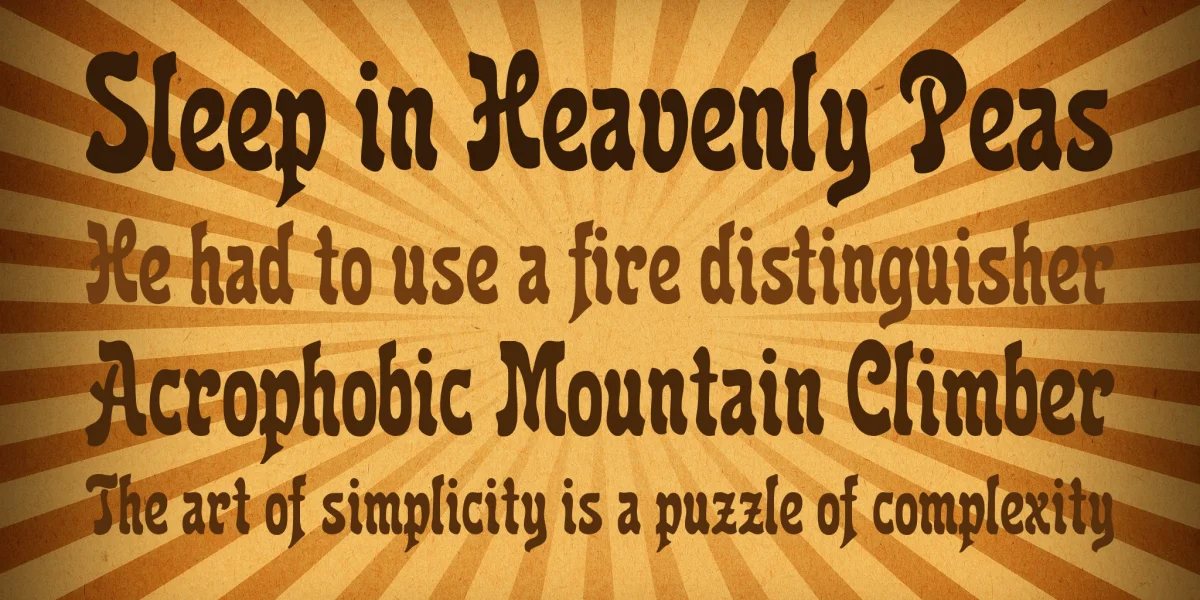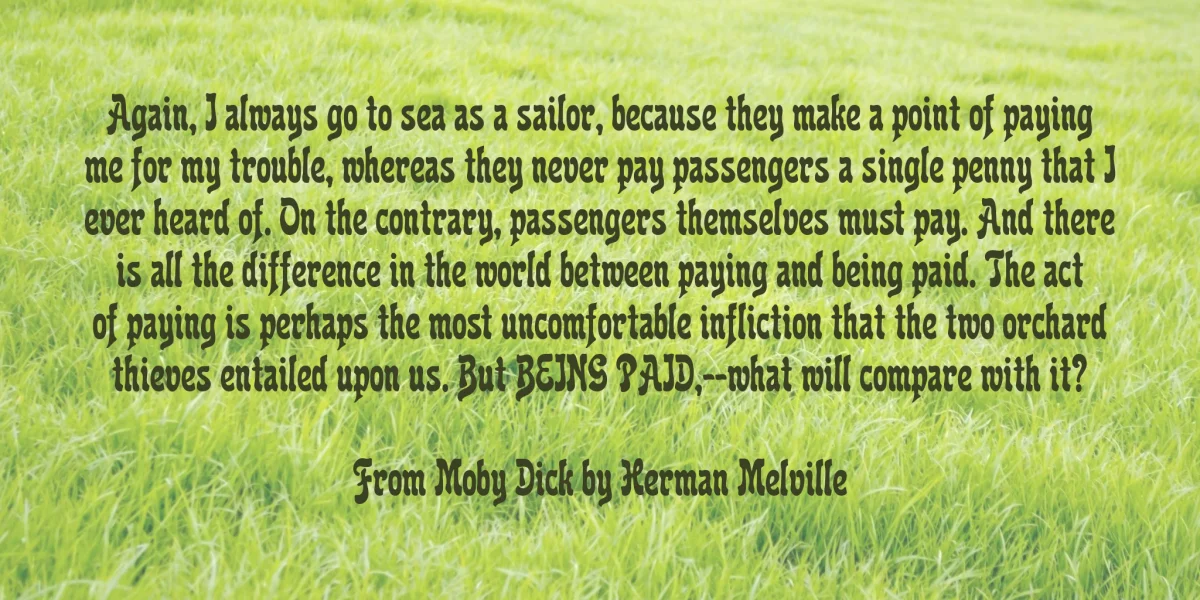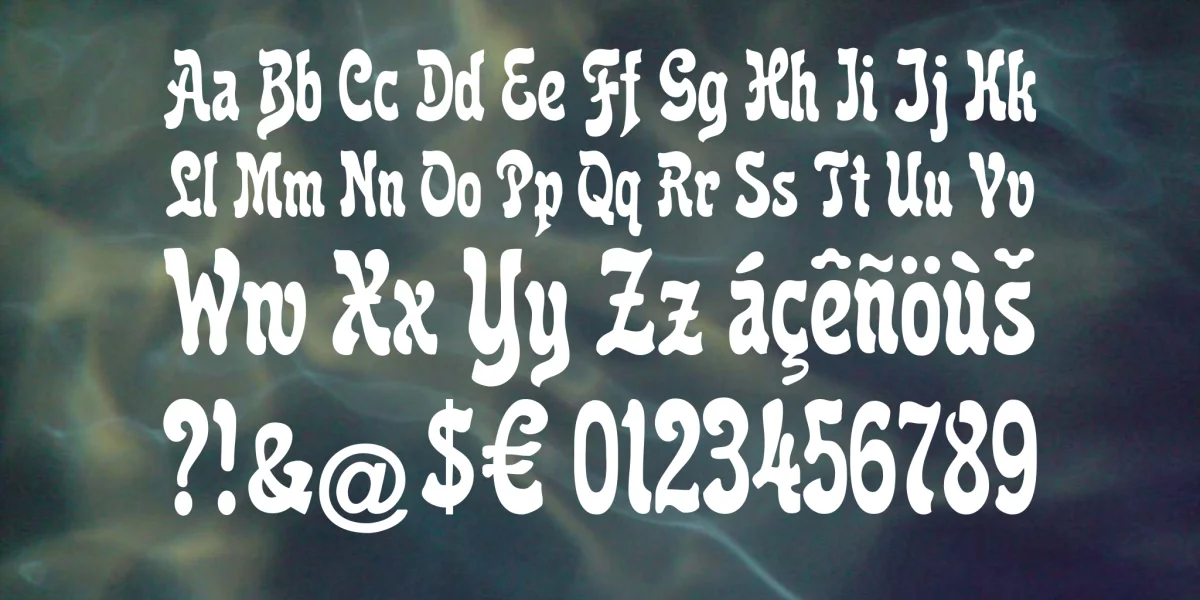
Translation of the original German description: Reclame is another font from the promoterism period around the year 1900, originally published by the foundry Flinsch. Please donate if you like the font!